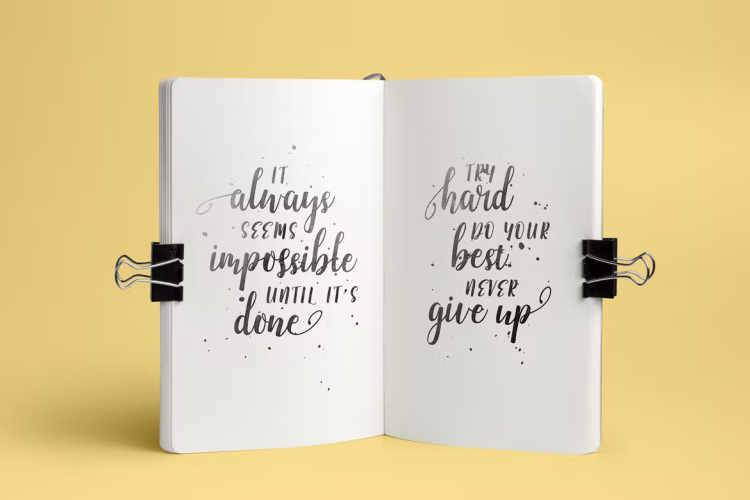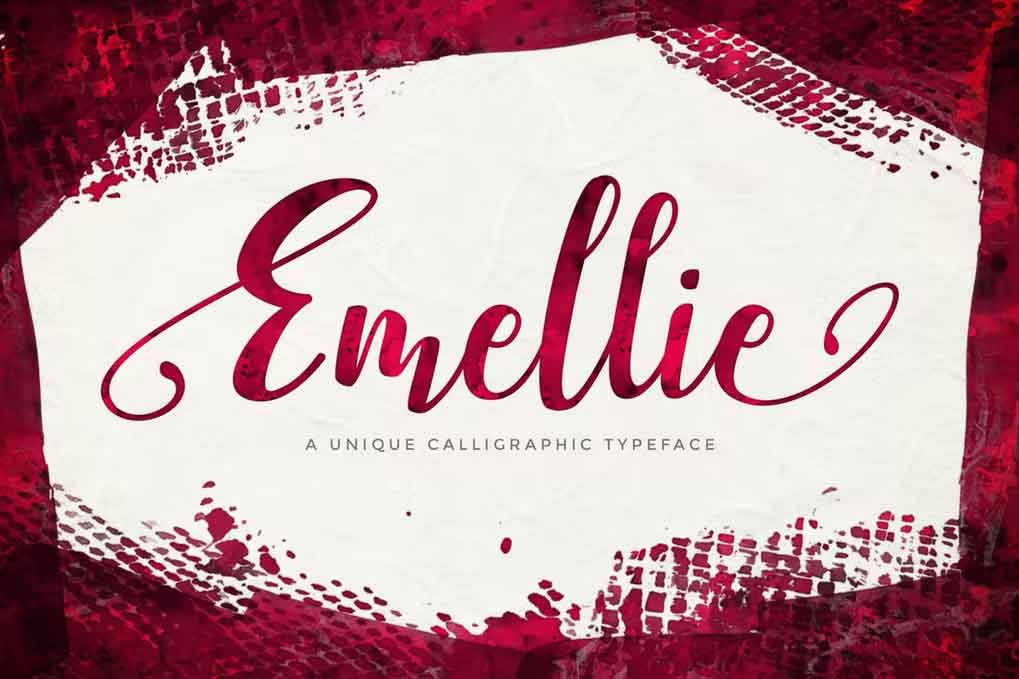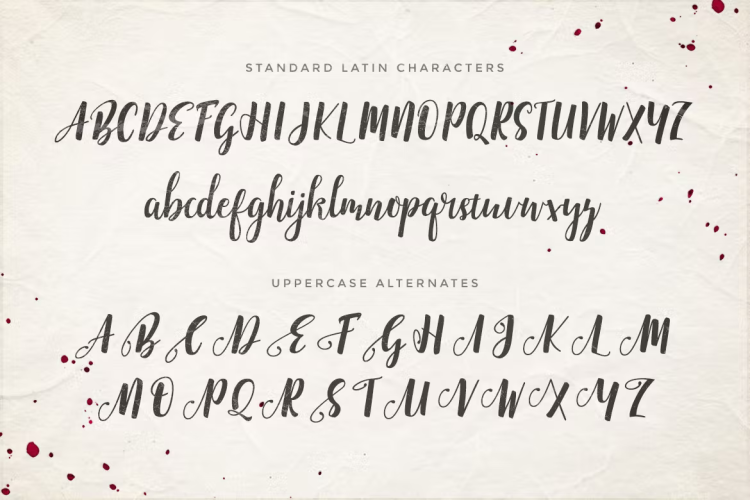
Emellie Script Font
Emellie is unique calligraphic typeface with fun feminine swashes, and is perfect for logos, greeting cards, wedding collateral, and more.
Included are standard Latin characters, uppercase alternates, initial and terminal forms, numbers and symbols, extended Latin characters, and select ligatures.
Emellie is complete and beautiful, and will find itself right at home in any project requiring a script font.
Where Emellie Script Font works best
Emellie Script Font brings a personal, handwritten warmth to invitations, menus and place cards.
Craft brands — coffee, cosmetics, bakery — use scripts like Emellie Script Font for signature-style logos and labels.
Pair Emellie Script Font with a plain sans for quotes, stories and Pinterest pins that feel handmade.
What is Emellie Script Font good for?
Emellie Script Font is a Script And Handwritten typeface tagged Branding, Calligraphy, Handwritten, Script. It works well for headlines, logos, posters, social media graphics and branding projects that need a distinctive script and handwritten look.